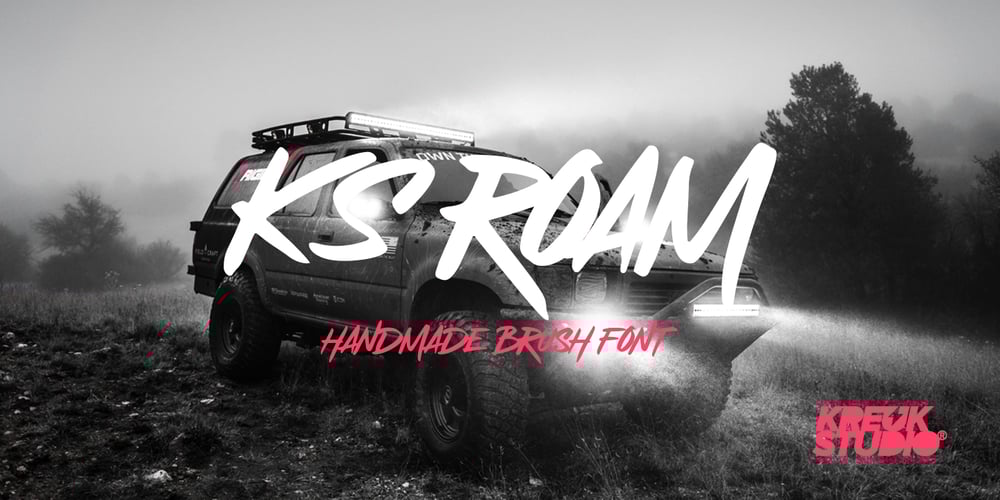
KS Roam Font Family was designed by Rendra Diardjo and published by Kreuk Type Foundry. KS Roam contains 1 styles and family package options. KS Roam is a handmade display font with fun thick brush impression at a glance. Brush inspired display with strong, catchy & striking form display. KS Roam ideally suited for headline title, logo, branding, posters etc.